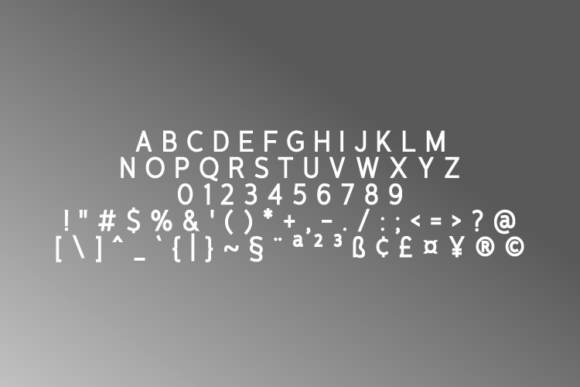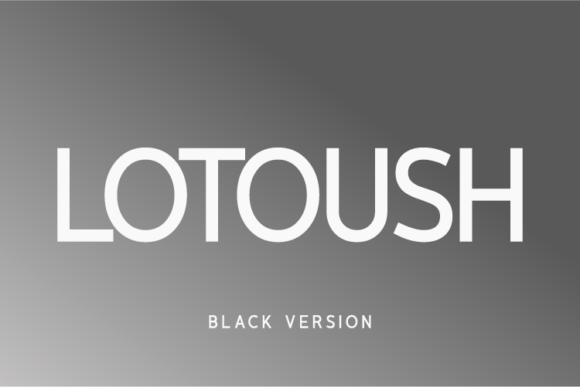
Introduction to Lotoush Black Font
Lotoush is a smooth sans serif font.
It will complement any design need perfectly with its perfectly balanced mix of the smooth and sharp .
Why Choose Lotoush Black Font?
Lotoush Black Font offers exceptional quality and versatility, making it a valuable addition to your design toolkit. Whether you’re creating for personal projects or commercial use, Lotoush Black Font delivers professional results.